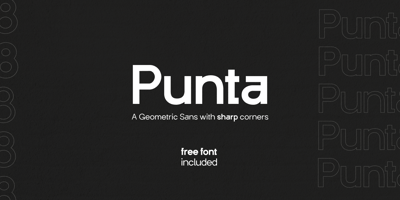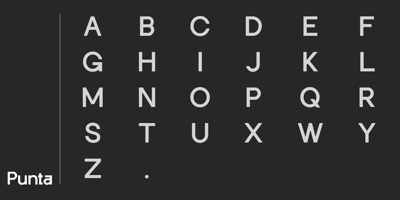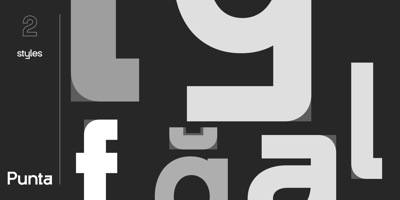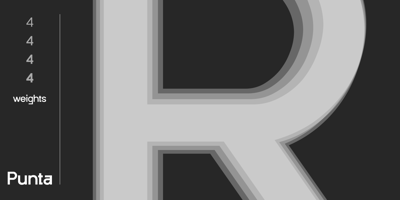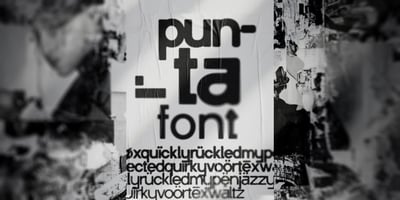
Hey there, I'm Tuna, a visual designer from Istanbul, Turkey with an architectural background. I started working as an architect then slowly progressed as a freelance graphic designer, a UI/UX designer and as a creative director. This foundry consists of my own work only.
While building a project or designing a product, we've been taught always mind the environment and blend with it. The education built my design philosophy. Therefore, most of my designs have a relationship with where I lived at the time. You'll see these on my new font Punta, which was an old name of a province of Turkey and my upcoming font Kerestedji, a font built from a modern revival of Istanbul's old house signs.